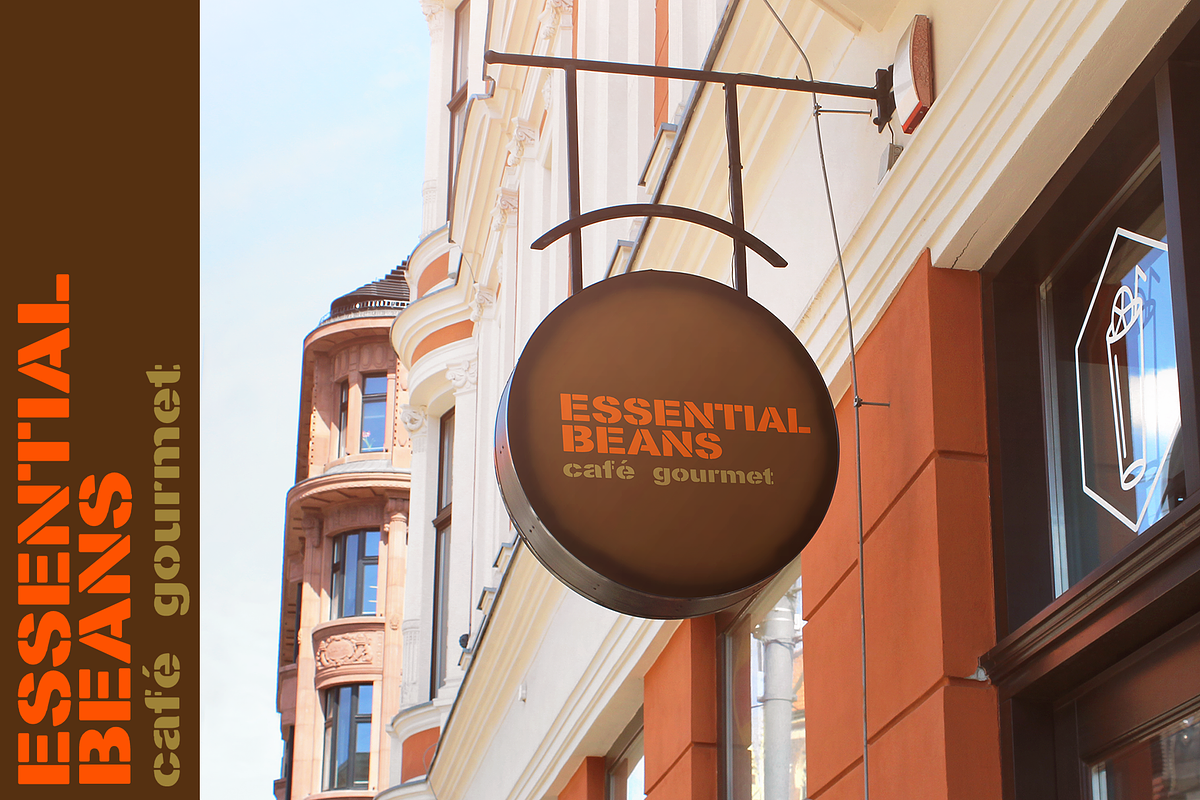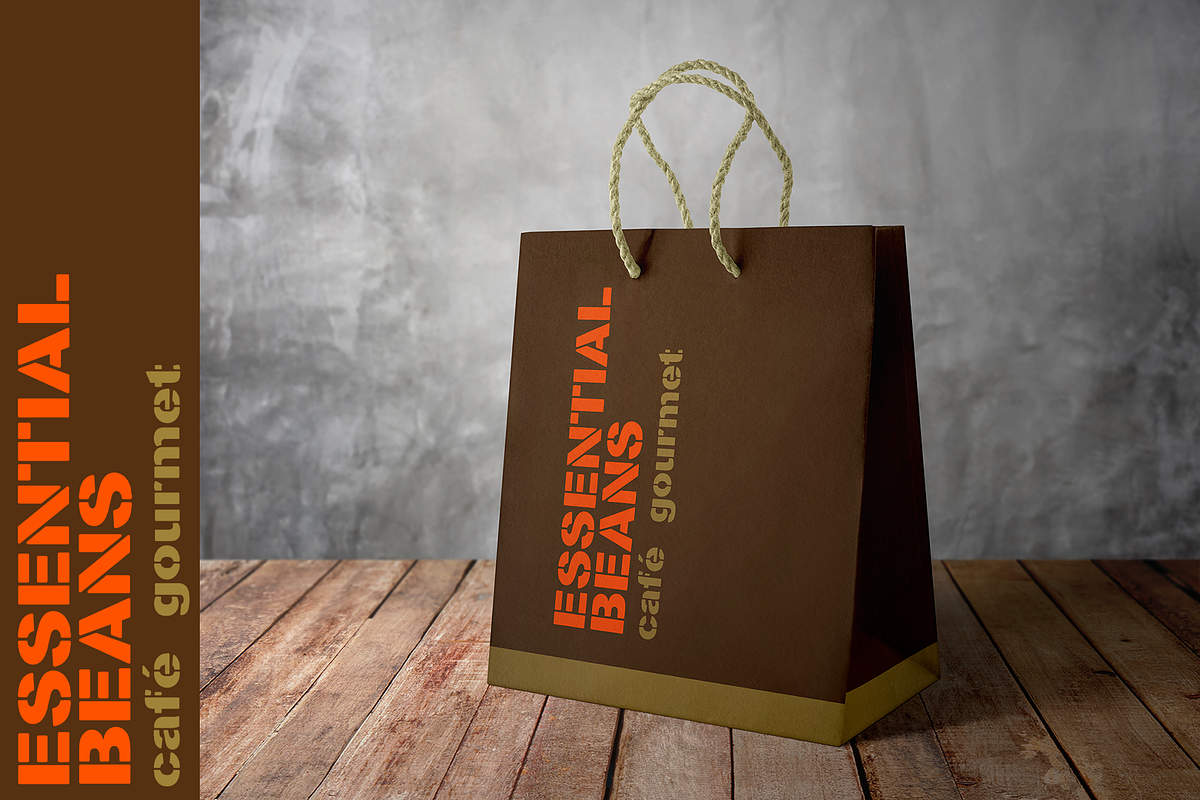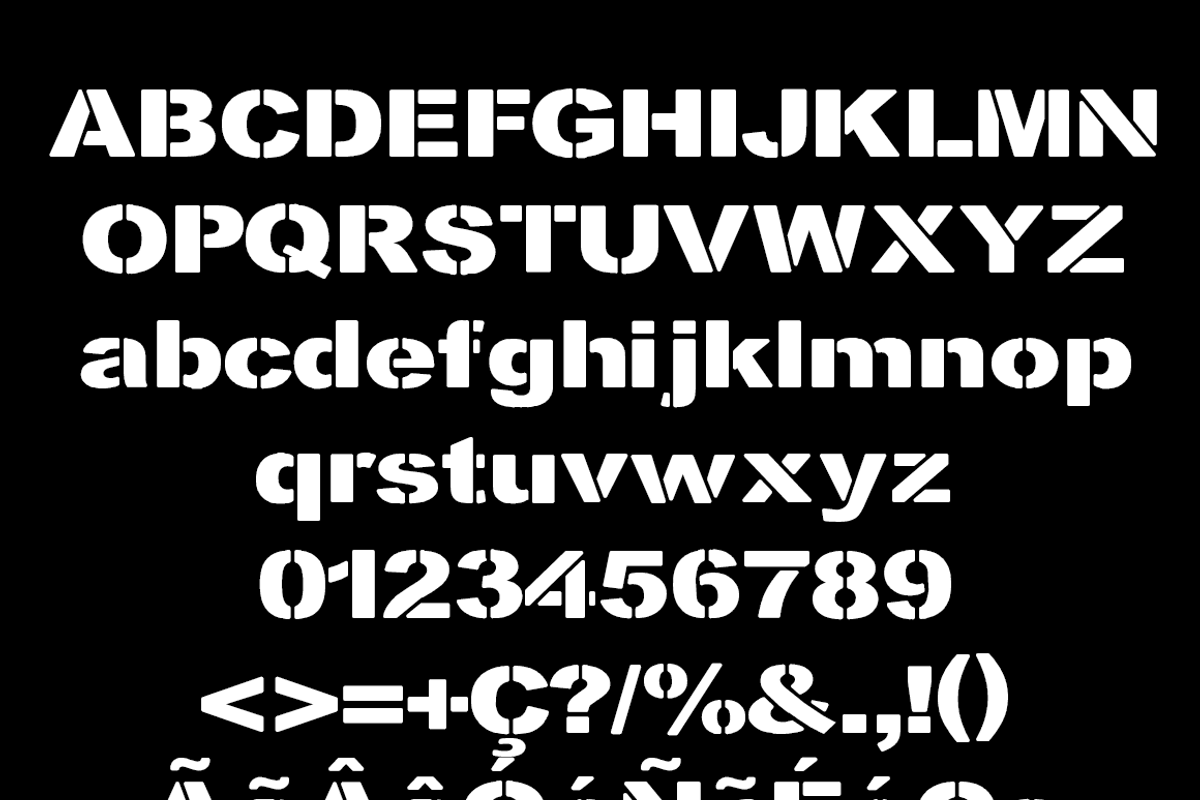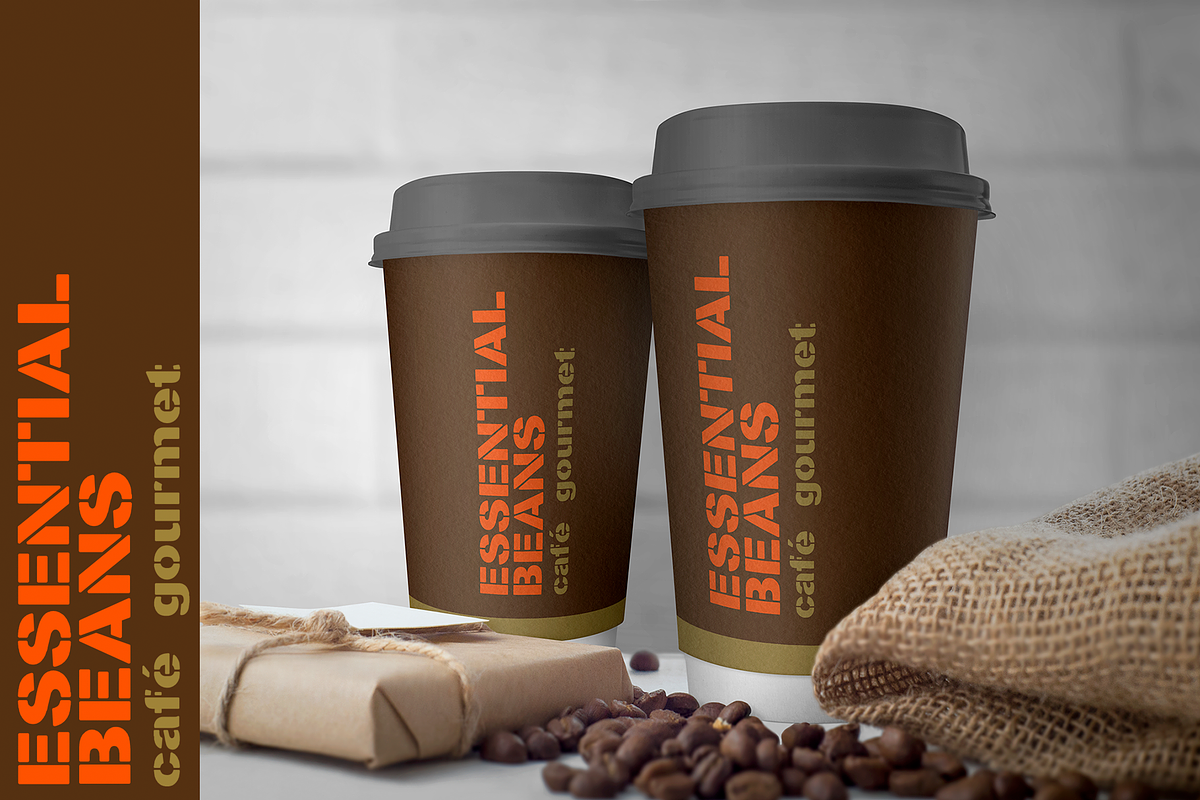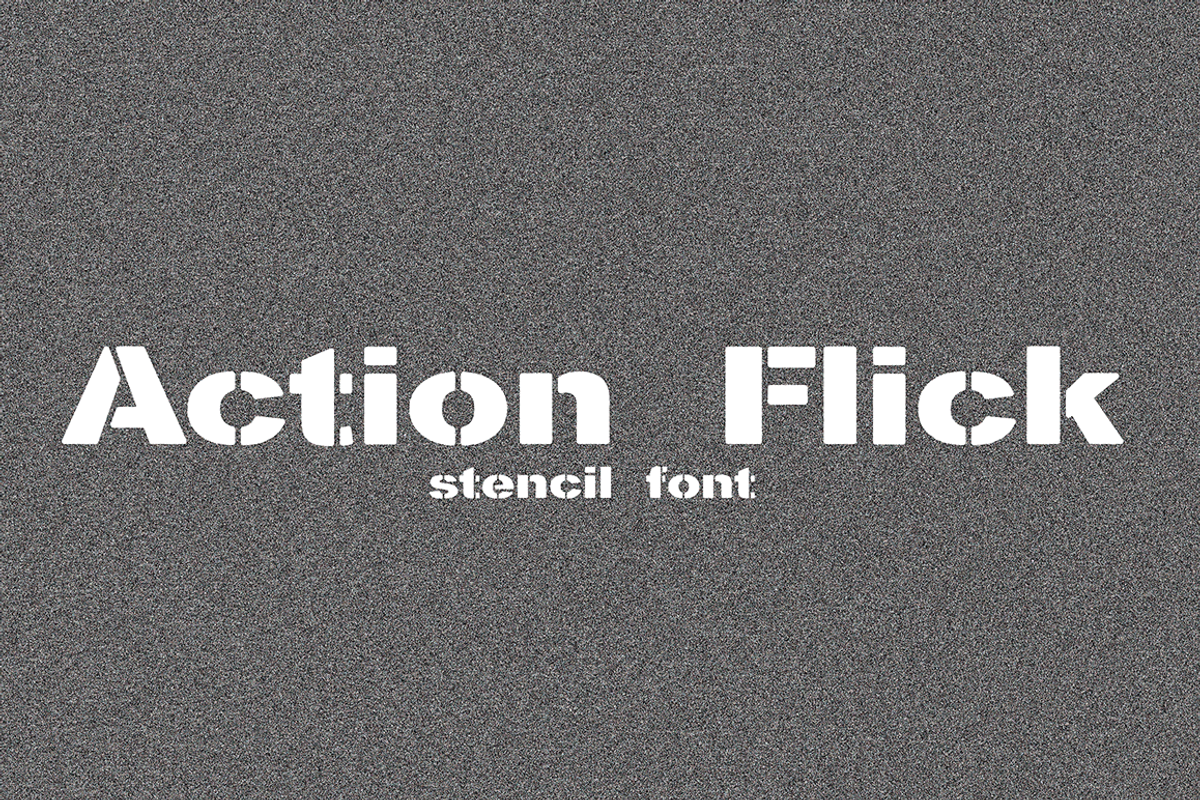
Action Flick stencil font
Action Flick stencil font by Minhocossauro Emporium is a font selected for branding, posters, packaging, typography.
Why Action Flick stencil font is worth a look
Action Flick stencil font by Minhocossauro Emporium fits naturally into Branding, posters, packaging, typography.